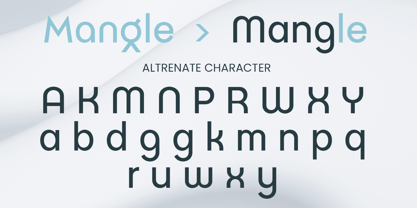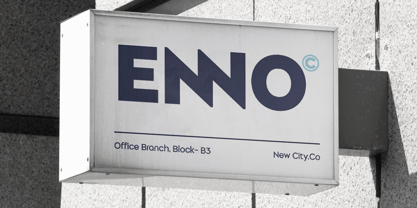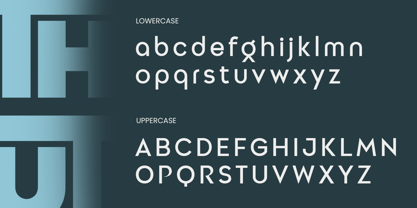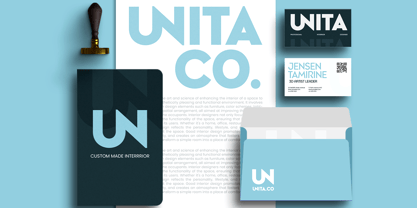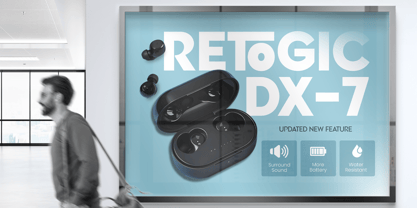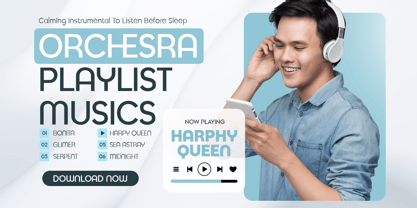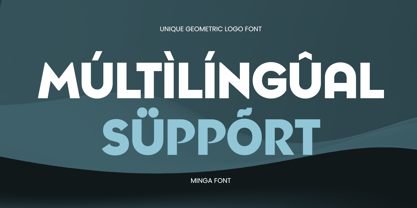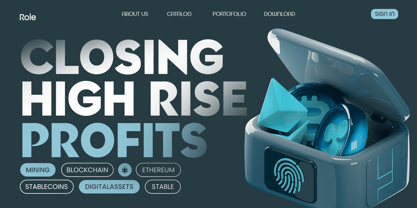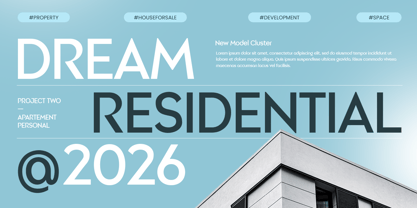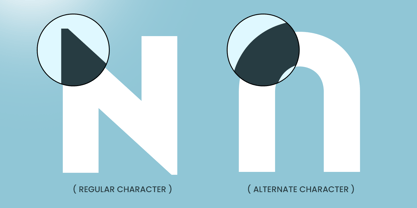
Minga is a unique geometric logo font family crafted to build clean, consistent, and instantly recognizable brand identities. With structured geometry and distinctive character details, this family delivers a modern tone that feels smart, minimal, and confidently contemporary.
Designed for branding systems that need flexibility, Minga works seamlessly across logos, wordmarks, website headers, UI design, packaging, social media graphics, and modern editorial layouts. As a family, it helps you maintain hierarchy and consistency across different applications while keeping your visual identity cohesive in both digital and print environments.
Whether you’re building a startup identity, refining a corporate brand, or crafting a sleek product ecosystem, Minga provides a geometric foundation that looks polished, modern, and uniquely ownable.
Inspiration Behind Minga
Minga is inspired by modern geometric typography and clean brand systems - where balance, precision, and clarity shape the identity. Built as a versatile family for logo and branding work, it supports everything from minimal wordmarks to structured digital interfaces, helping brands communicate innovation, professionalism, and modern simplicity across every touchpoint.
Minga Font Features
Geometric letterforms with unique logo-focused character
Font family built for consistent branding and hierarchy
Available in 3 weights: light, regular and bold version
Strong readability for headlines and digital layouts
Uppercase, lowercase, numerals, and punctuation included
OpenType features for polished professional typesetting
Perfect For
Logo design, wordmarks, and brand identity systems
Startups, tech brands, and modern corporate branding
UI/UX, website headers, and digital product design
Packaging, labels, signage, and clean print layouts
Social media campaigns, presentations, and marketing assets
Multilingual Support
Build a clean, modern identity with MINGA - crafted for geometric logo systems that feel unique and future-ready. ✨